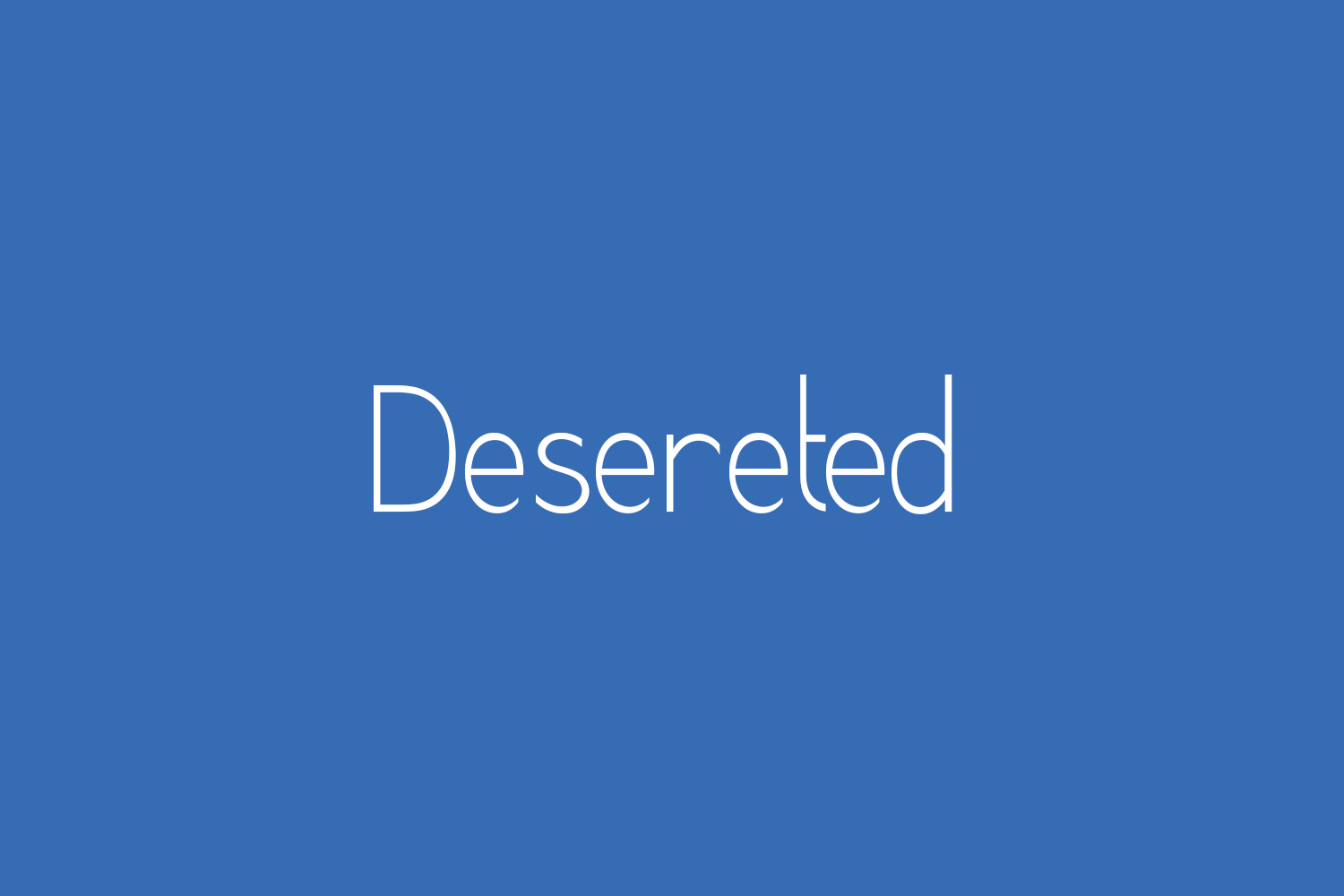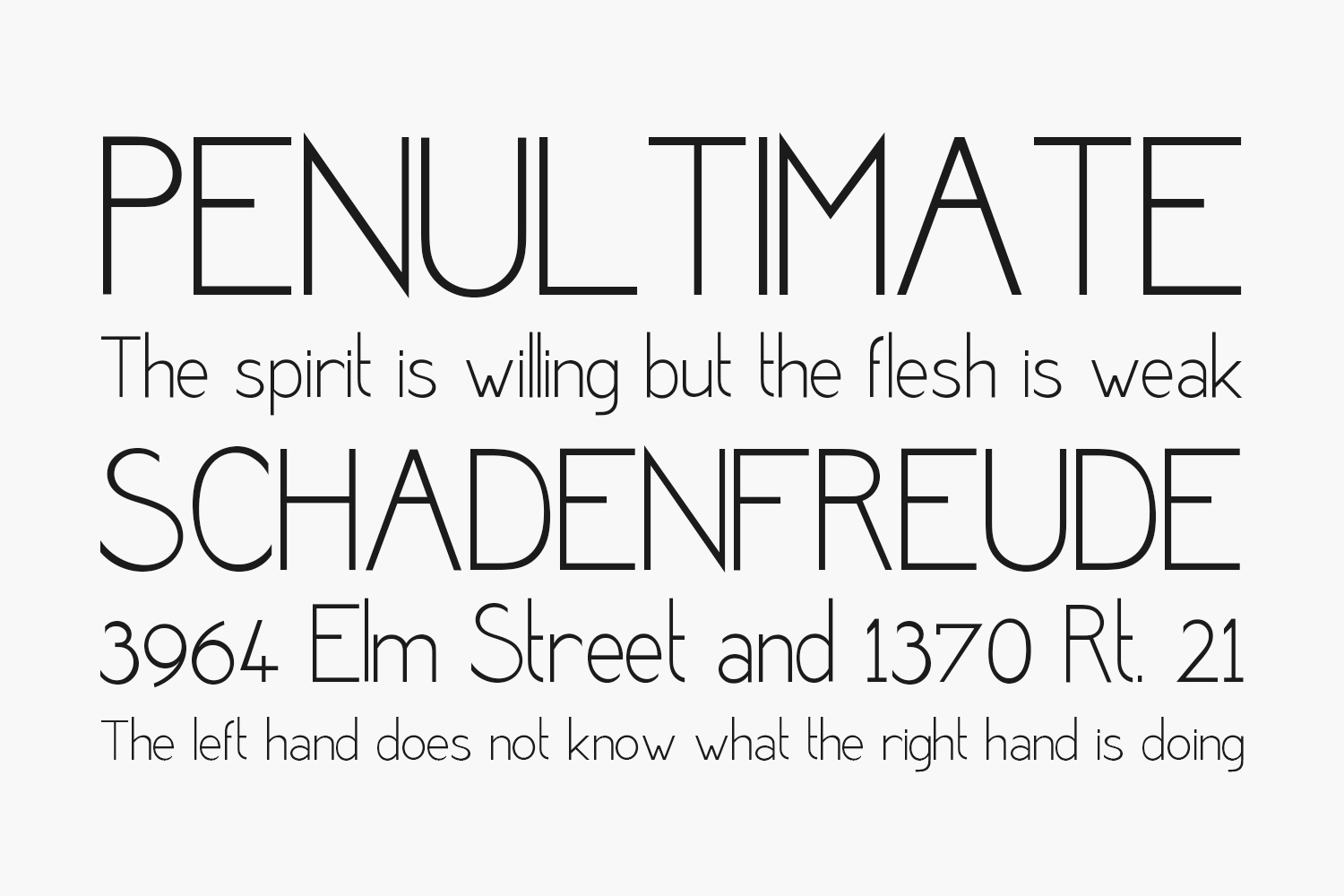
Desereted Free Font is a sans-serif font that has rather strict geometrical shapes, and a low (actually more or less uniform) stroke contrast and a light overall stroke weight. It has a slightly condensed feel.
Designed by Bálint Erdősi